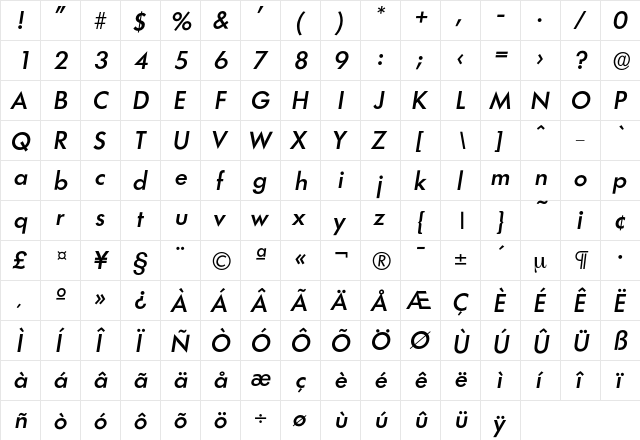
Limerick-MediumIta Regular
Design Context for Limerick-MediumIta Typeface
Limerick-MediumIta offers clean, dependable letterforms without strong stylistic allegiance, making it a practical choice for designers who need flexibility.